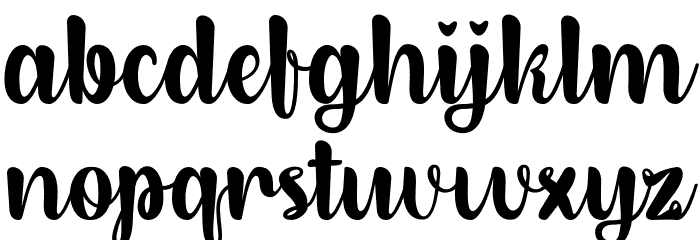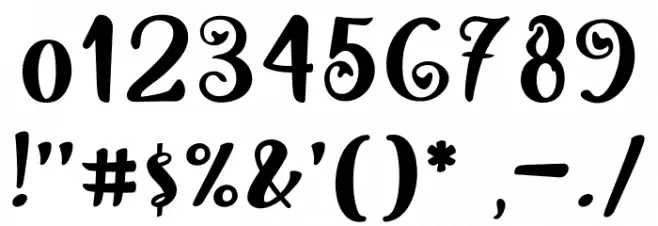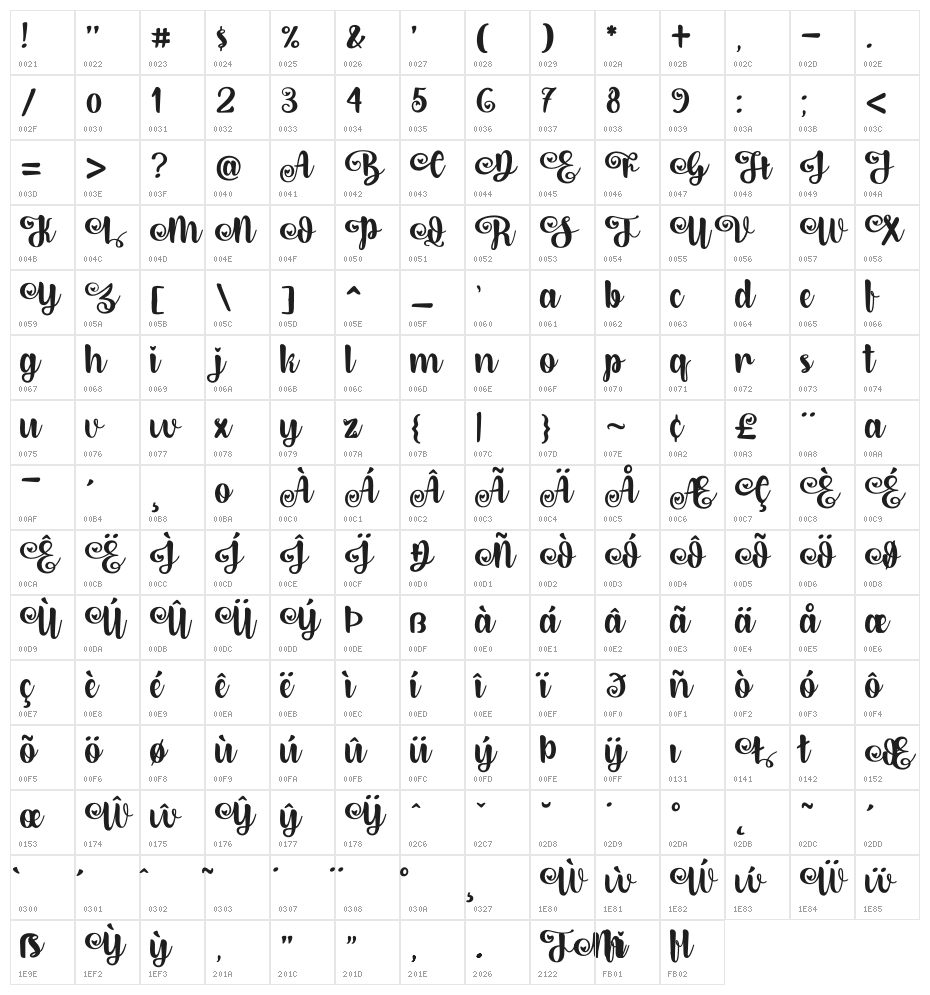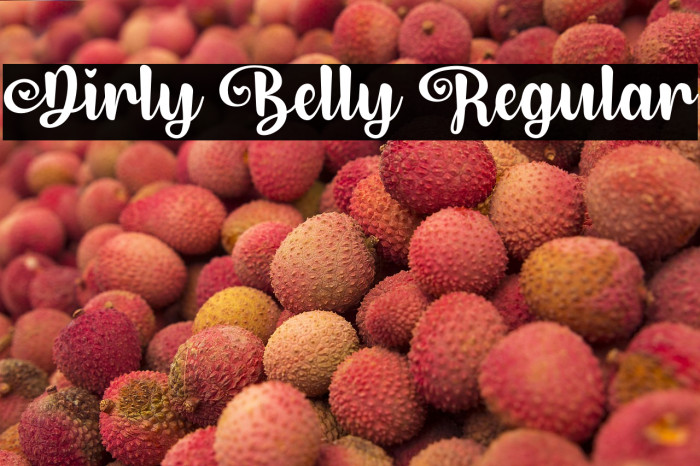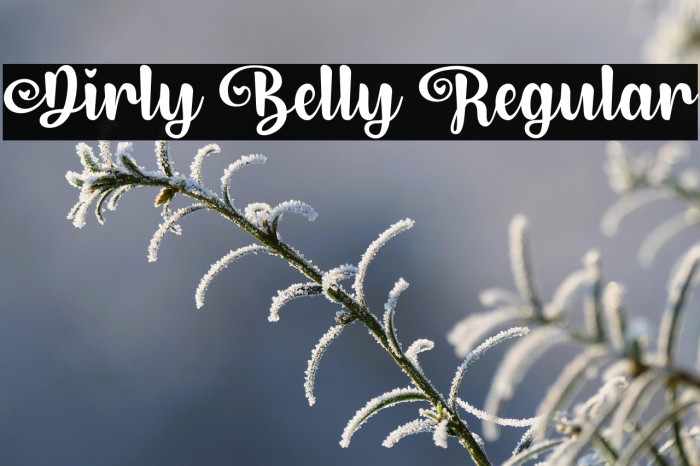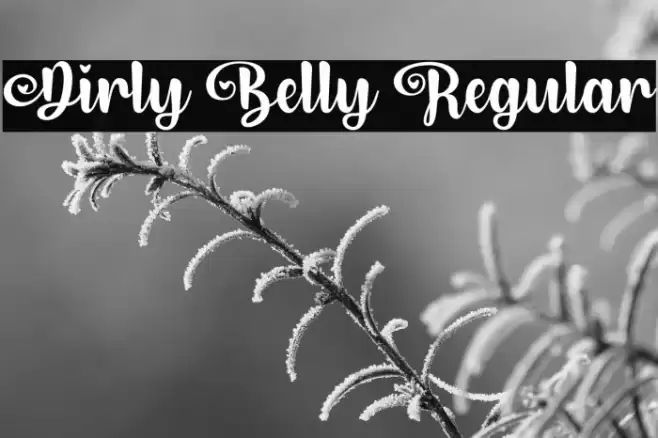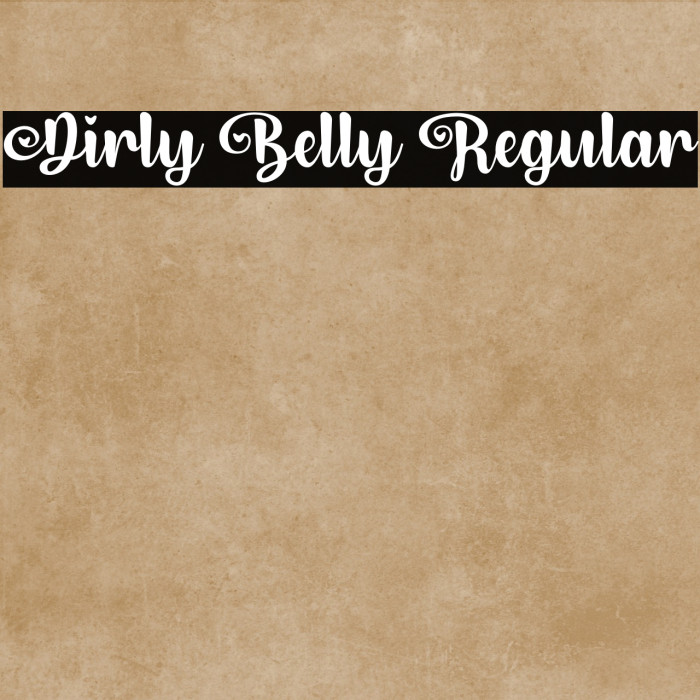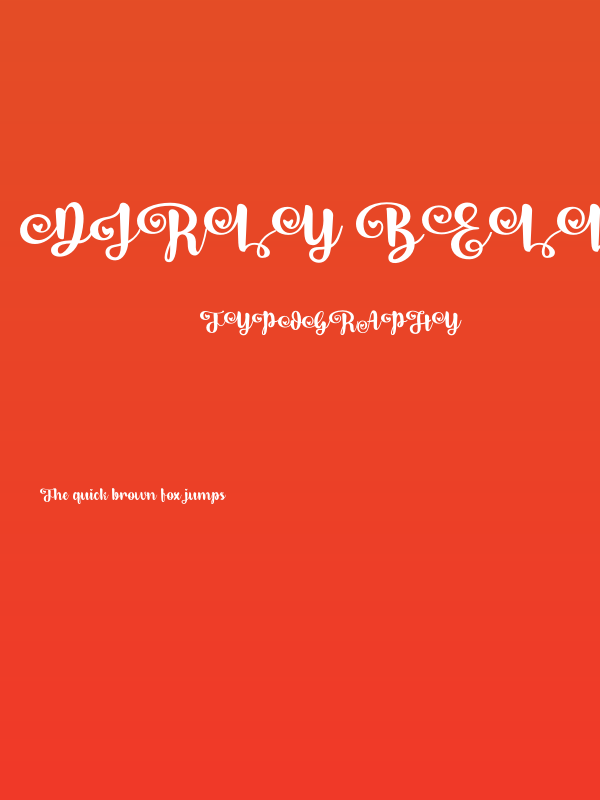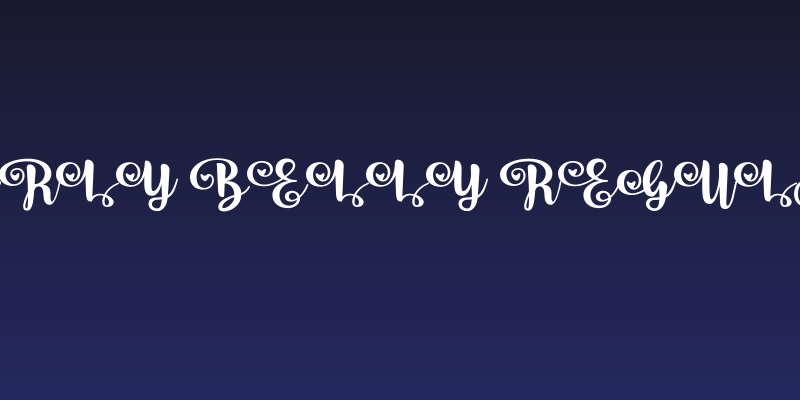
Dirly Belly Regular Font
This font features a playful and whimsical script style with a bold presence. The characters are interconnected with smooth, flowing curves, giving it a lively and dynamic appearance. The uppercase letters are ornate, with decorative swirls and loops, while the lowercase letters maintain a consistent, rounded form. The numerals and special characters are equally expressive, maintaining the font's overall playful aesthetic. This font is ideal for projects that require a touch of elegance and fun, such as invitations, greeting cards, or branding for creative businesses.
A playful, bold script font with flowing, interconnected characters.
- Proposed Projects: Ideal for invitations, greeting cards, creative branding, and decorative signage.
- Category: Script
- Use Case: Headlines, Logos, Decorative text